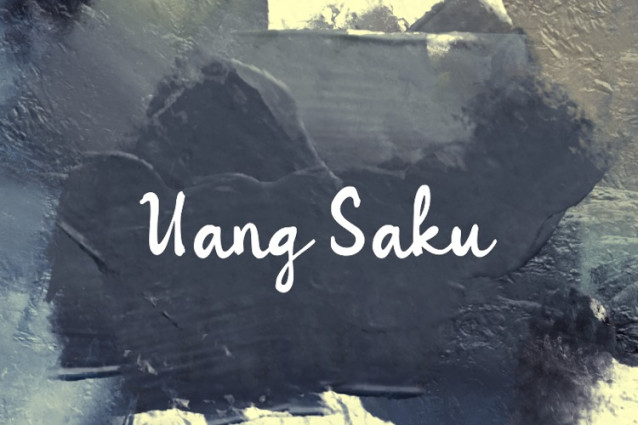
Uang Saku Font
Uang Saku Font is a simple and friendly handwritten font. Its natural and unique style makes it incredibly fitting to a large pool of designs. The only limit is your imagination!